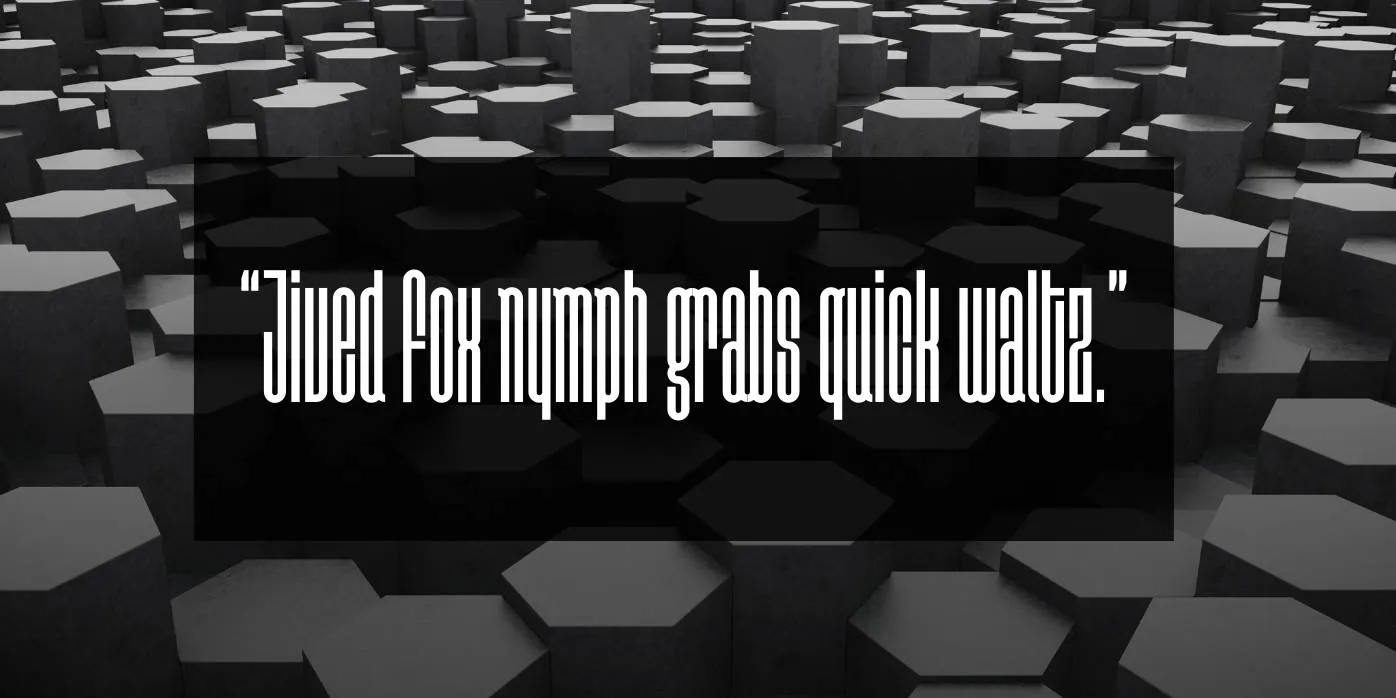
Disclaimer Font
Here we are going to discuss a very gorgeous and stylish typeface that is known by the name Disclaimer Font. This classy typeface belongs to the display font family. The main designer of this font family was Boris Bonev. This particular font was first released on 25th January 2018.
It is available in TTF and OTF file formats and can easily be installed on any Windows or Mac operating system. After its release, this font family became very popular within a very short span of time due to its unique and stylish look. This sans serif typeface has a very sharp look which makes it perfect for use in headlines and titles. Due to its high legibility, this font can also be used for long paragraphs of text.
Its copy and paste function is bests for different text designs. You will have to use its similar paw patrol font that has the same features. Some of the most notable features of the Disclaimer Font are given. It includes uppercase, lowercase, numerals, and punctuation marks.
It supports all Latin languages. If you are looking for a stylish and modern font family then this font is perfect for your projects. You will have to use its generator tool for many graphic designs.